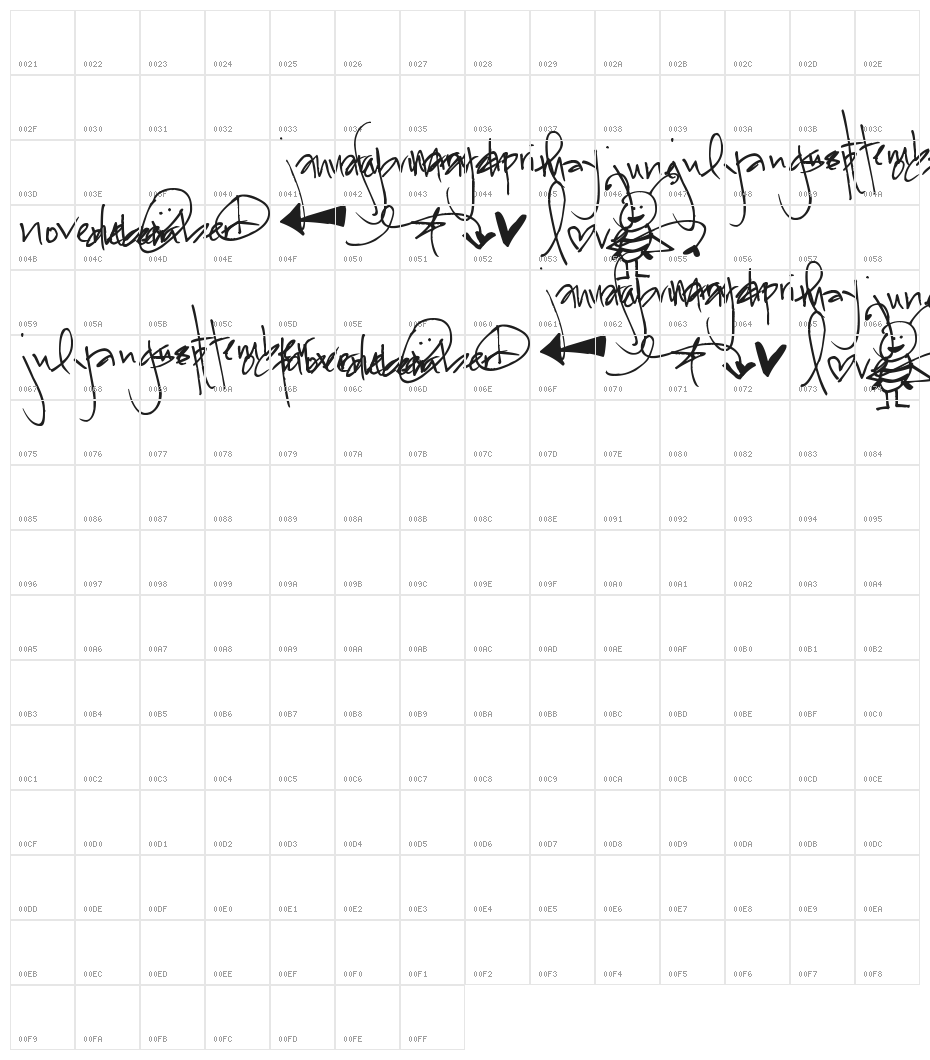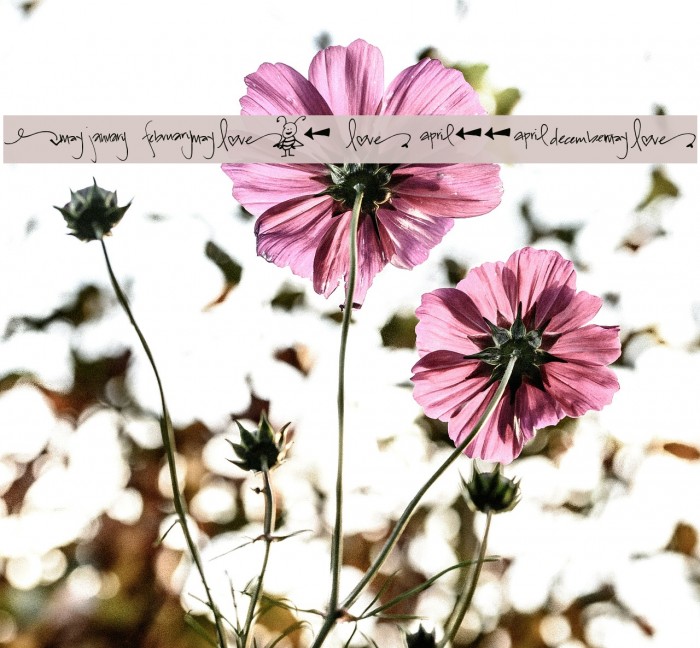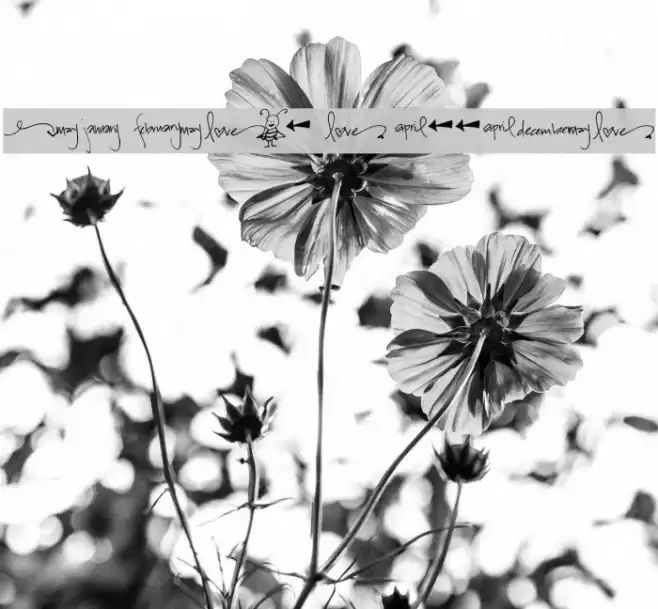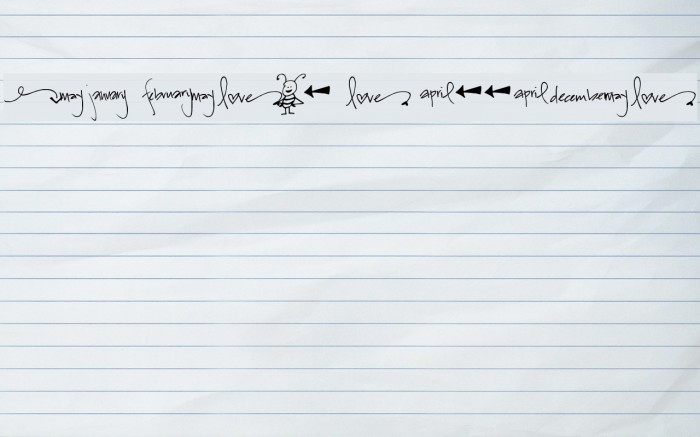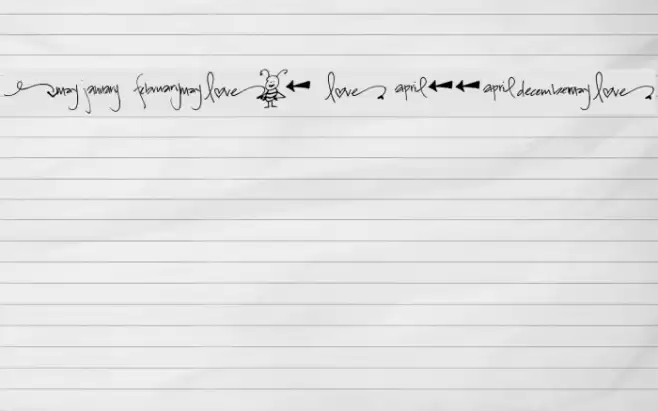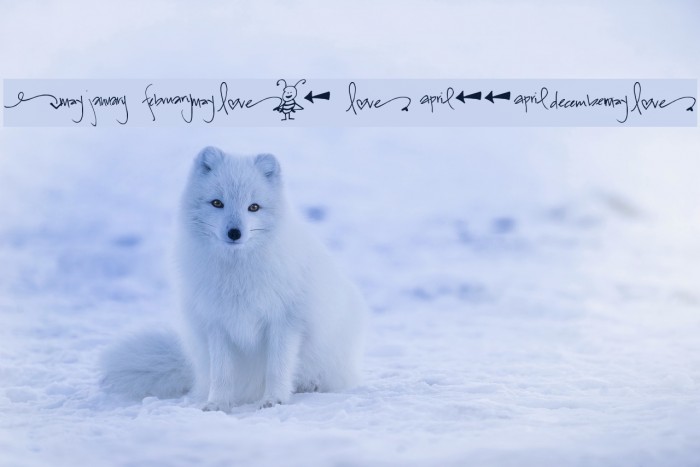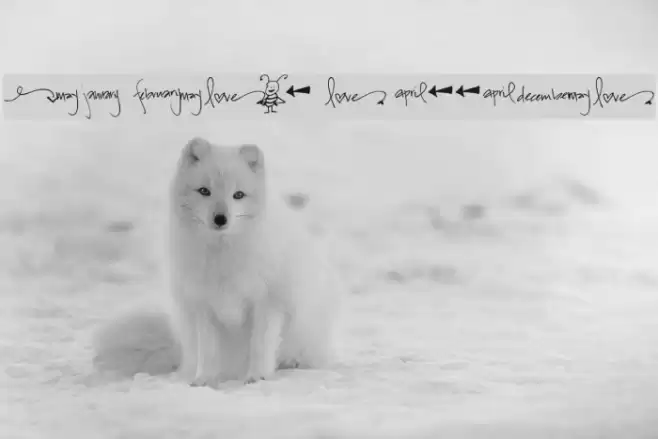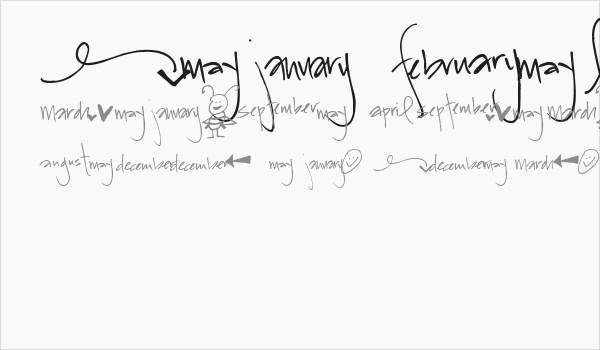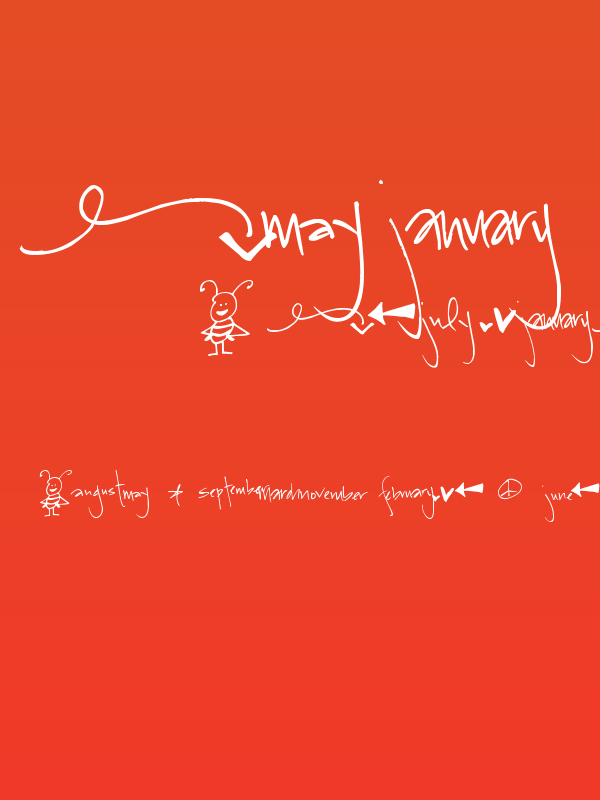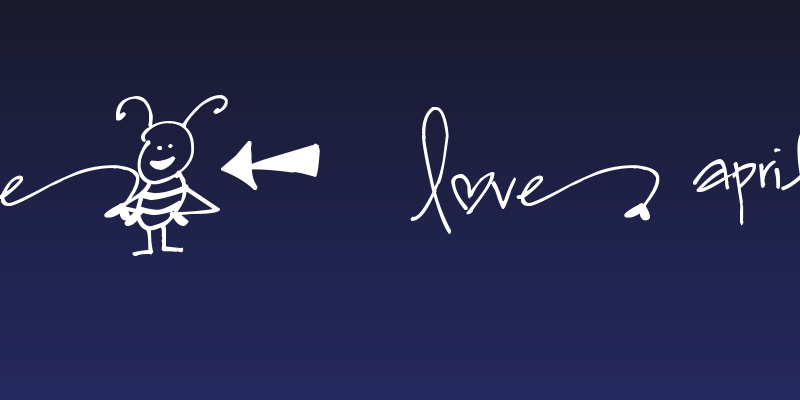
Pea Bestow's Doodles Font
Pea Bestow's Doodles Description
This playful and whimsical font features a handwritten style with a casual, free-flowing appearance. The characters are slightly irregular, adding a personal and informal touch to the text. The font includes charming doodles and symbols, such as hearts and arrows, which enhance its creative and artistic vibe. The strokes are varied, with some letters having loops and swirls, contributing to its lively and dynamic feel. It's perfect for projects that require a fun and friendly aesthetic.